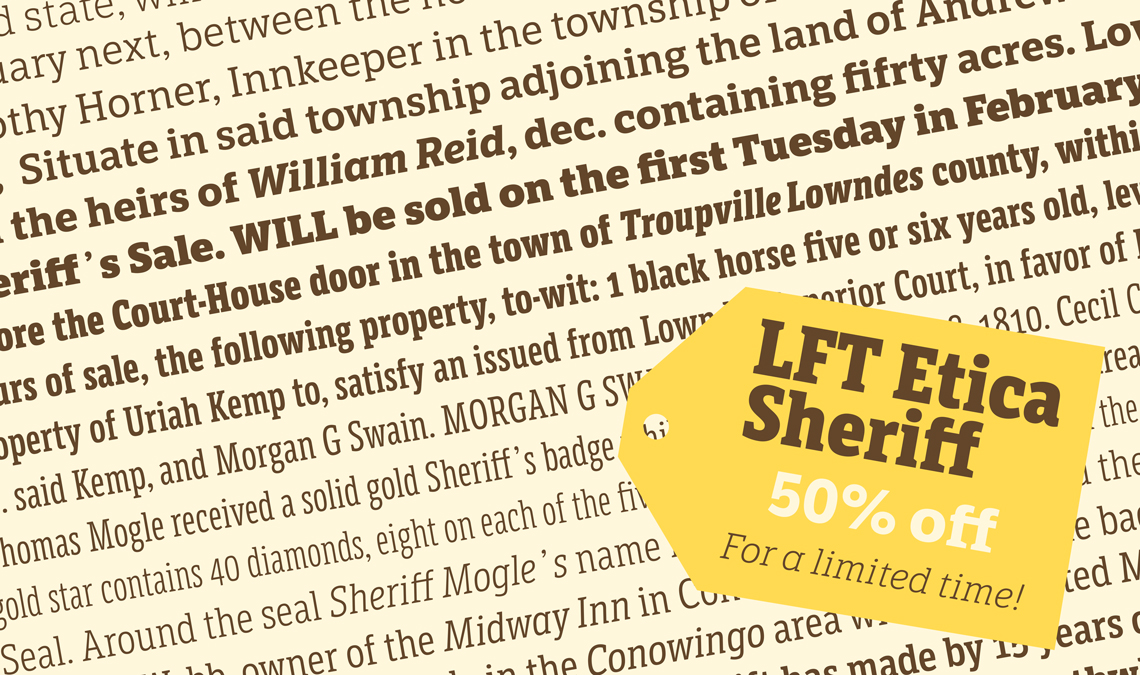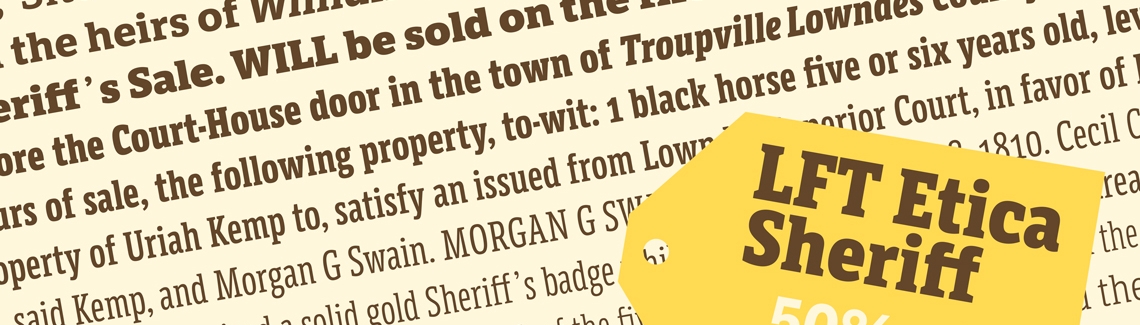
The sans came first. Then the serif. Now it’s your turn to wrangle a deal in this bustling cowtown. Never has a sheriff been so easily bought, but today is your day. For a time no longer than a town hall meeting, you can get LFT Etica Sheriff for half price, and you’ll be glad ya did. Ain’t nobody got time to waste trying to set a headline or a paragraph perfectly. But this barrel of buckaroos will practically do it for you. Just enter the code at checkout and your digital saddlebag will be fuller than a saloon on payday. You can download the specimen PDF here.